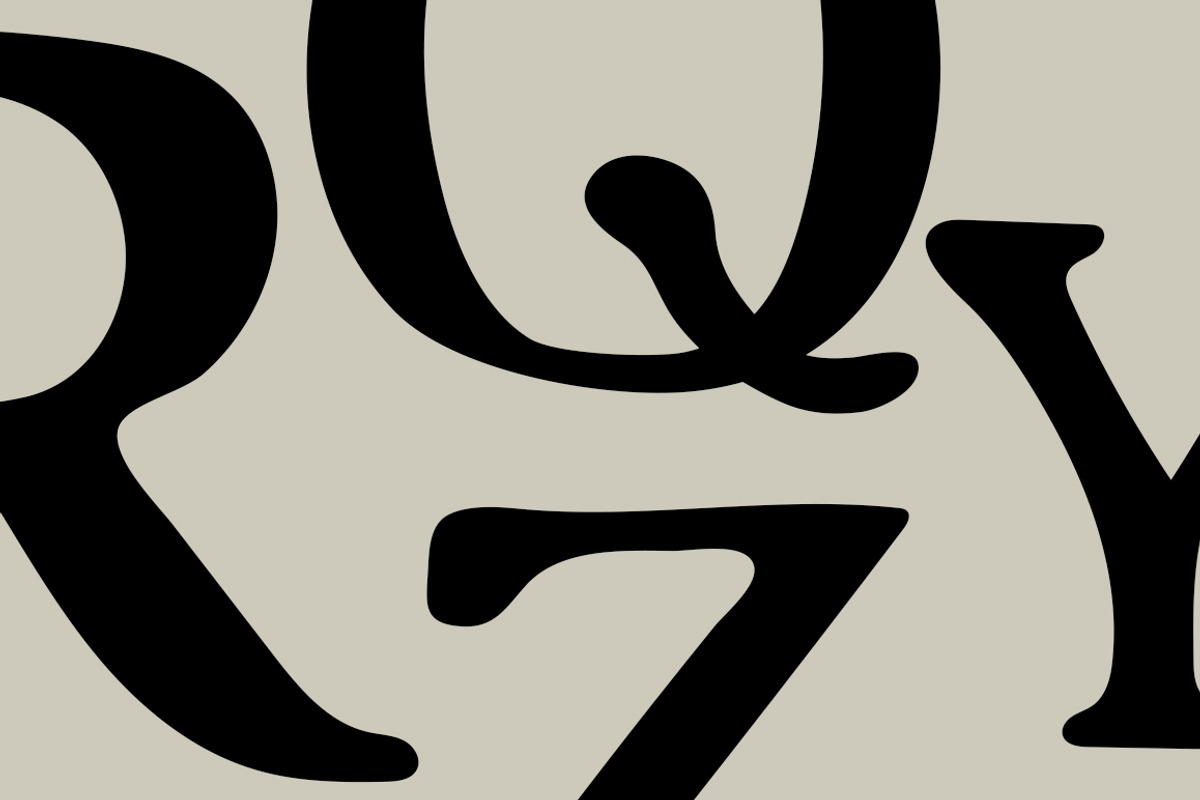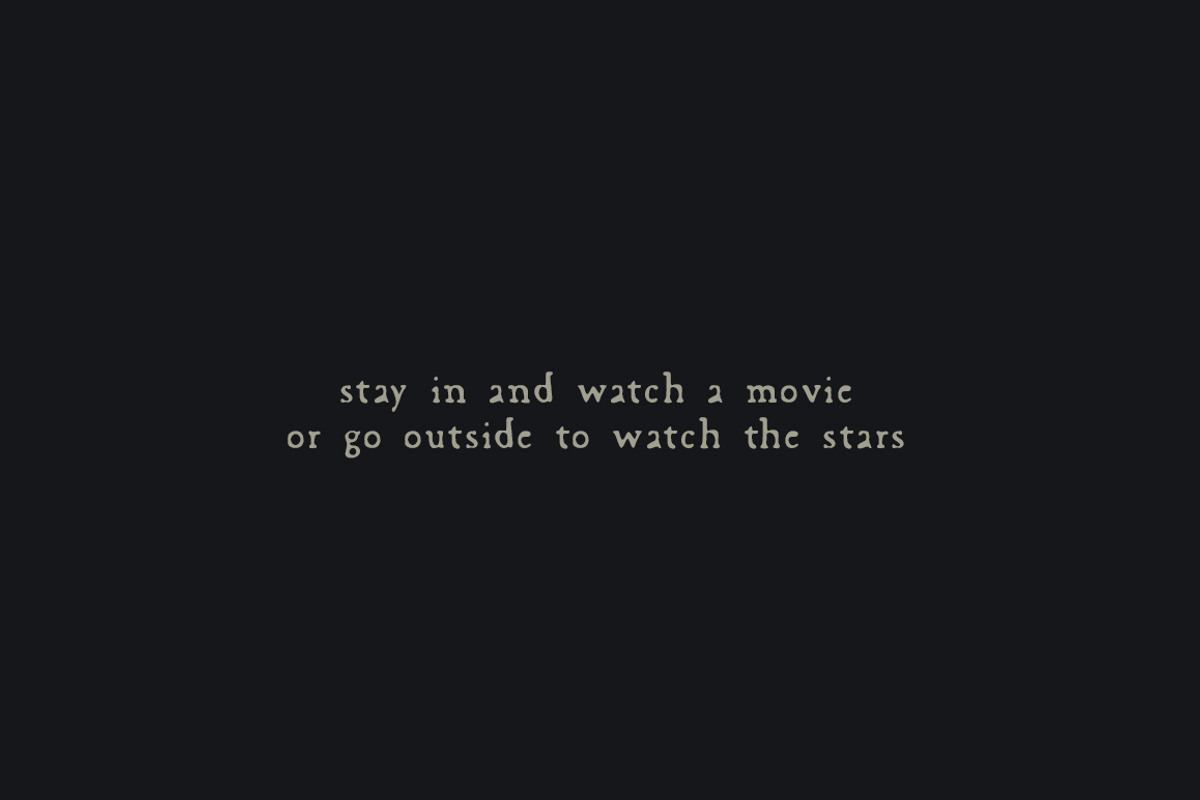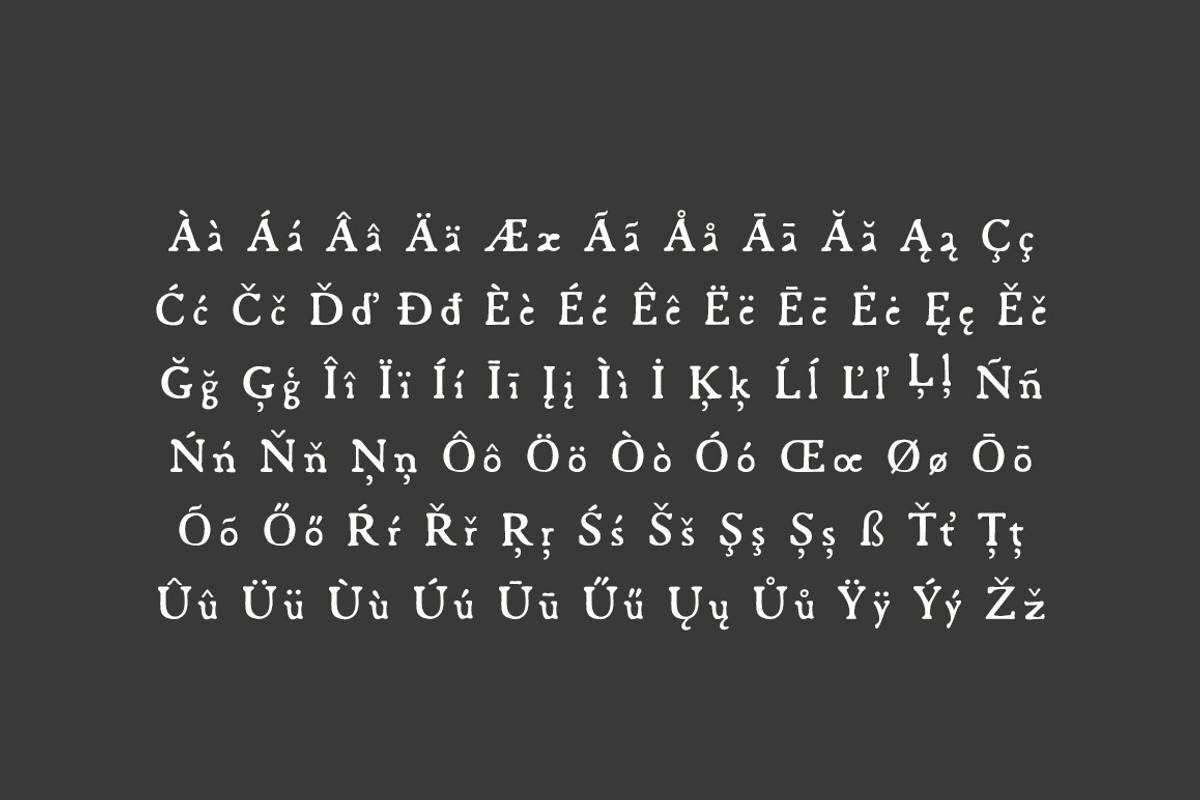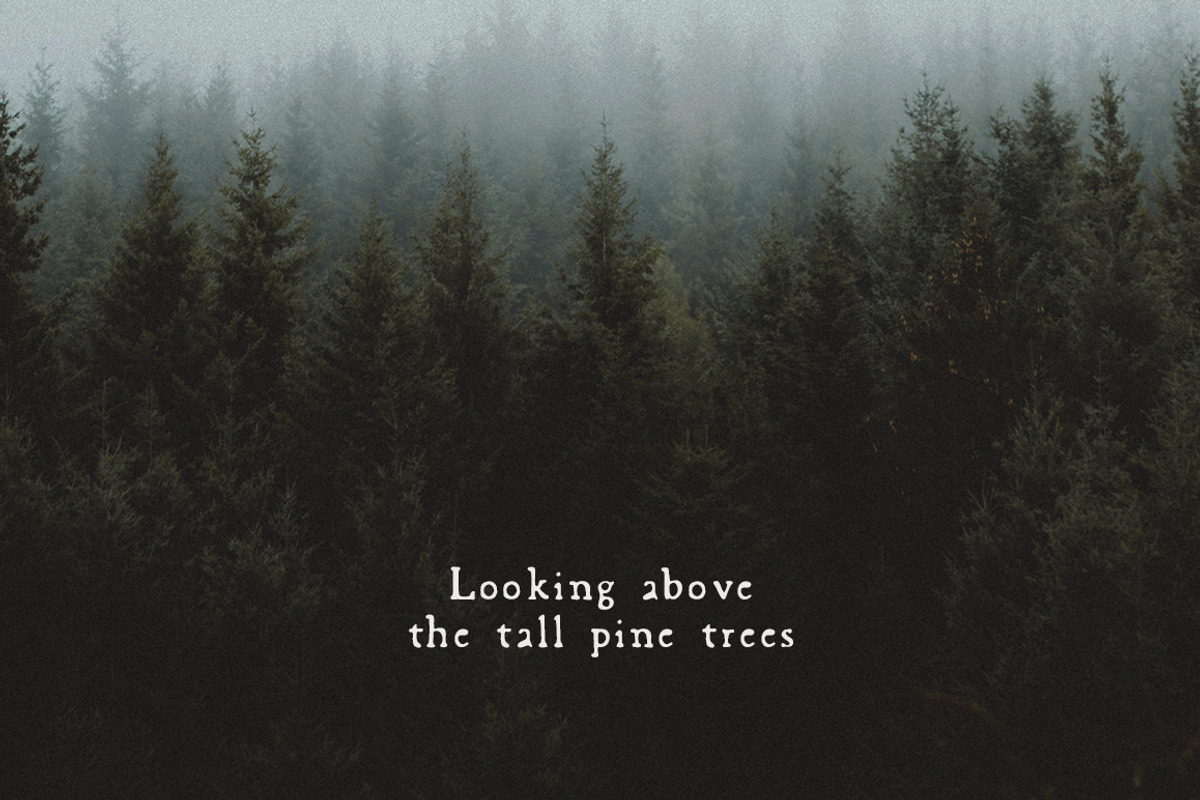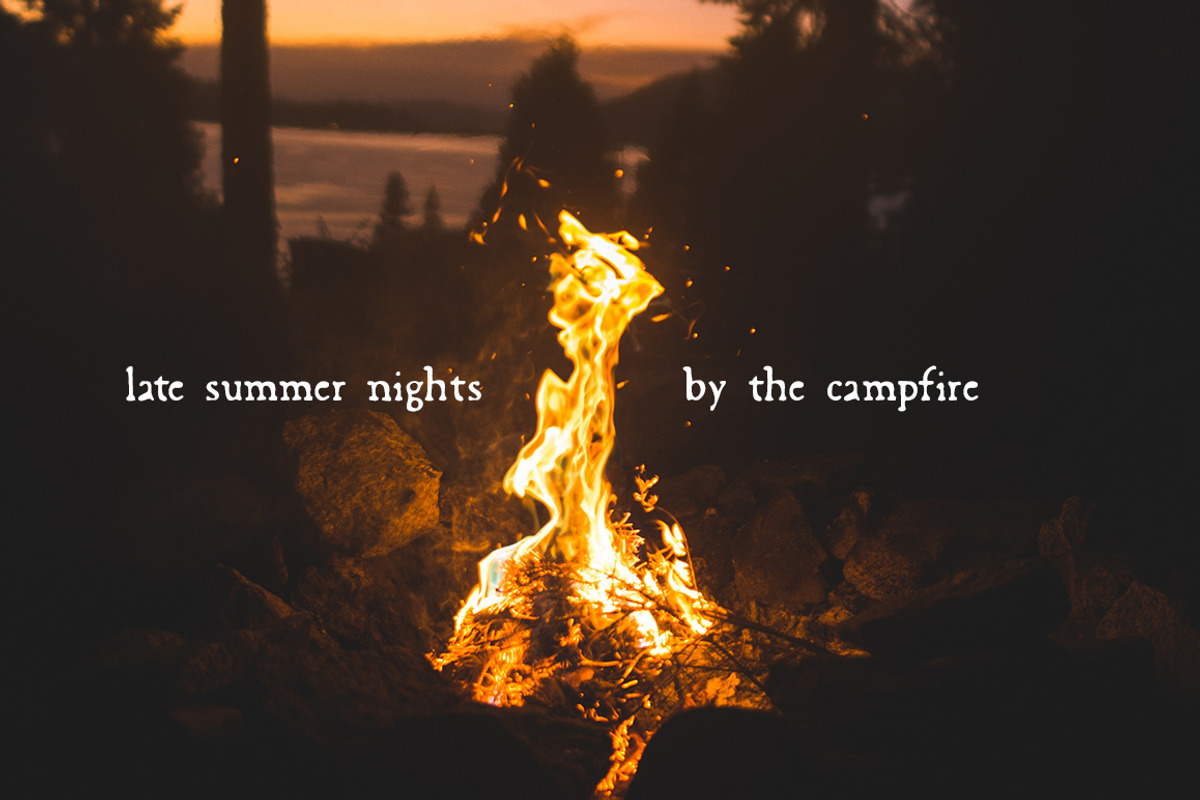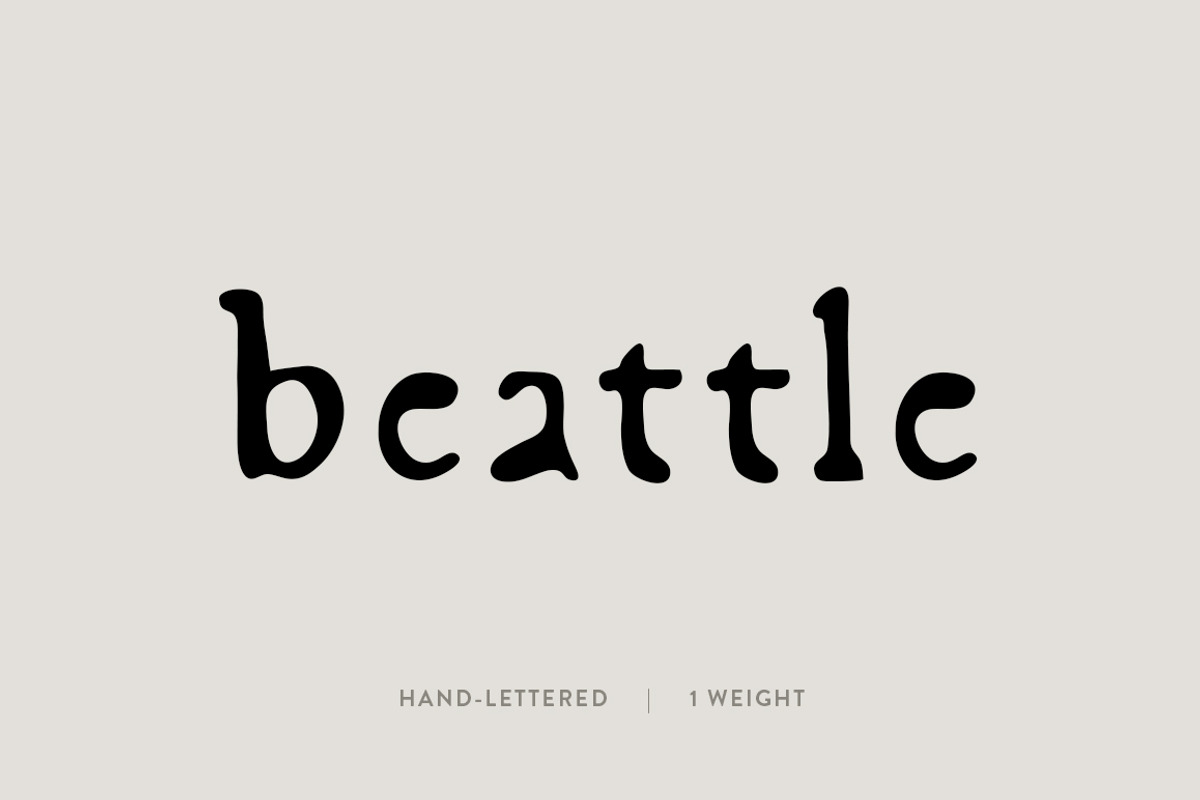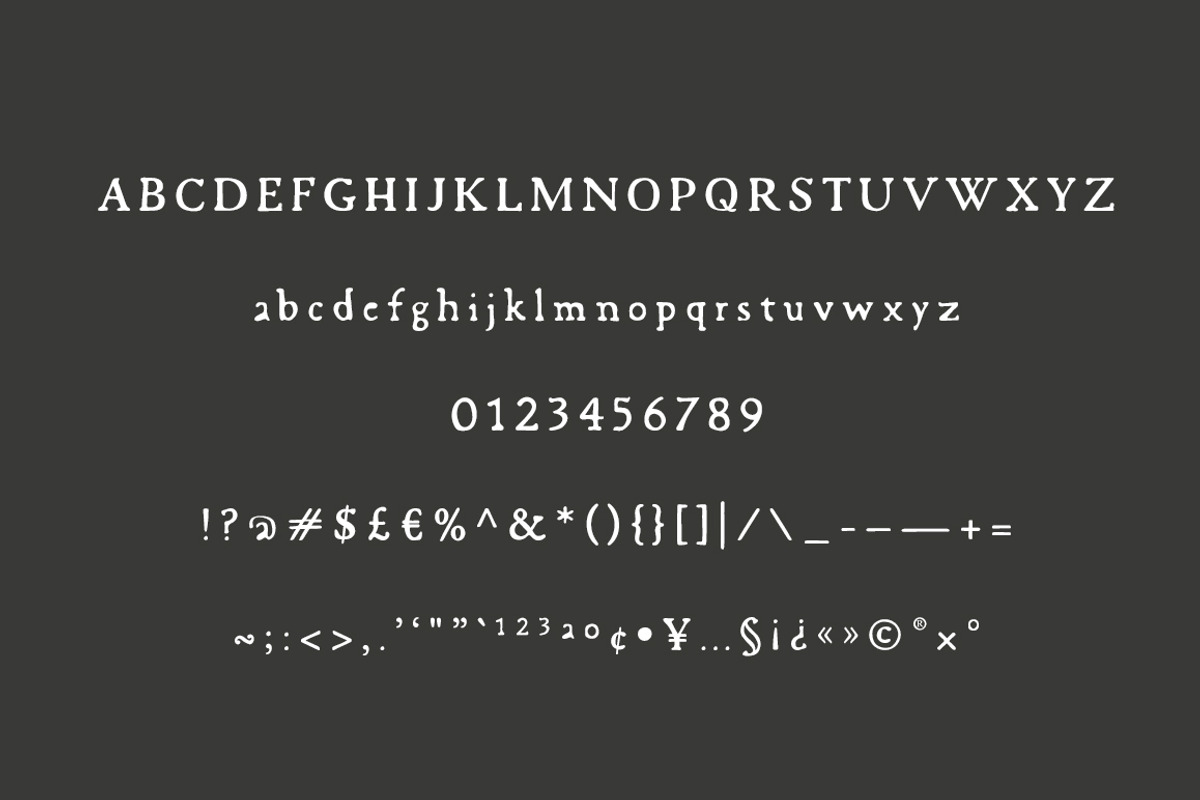
Beattle: A Typewriter-Inspired Font
The Beattle Font
Beattle was created to embody my design and lettering style. The font creates a timeless feel while tipping its cap to the past with its vintage-inspired lines that mimic the muddy ink from a typewriter. With its simple feel and touch of organic, this font is meant to be versatile. It is perfect for all projects that need anything from a naturally bold or a minimalistic thin style.
Included Characters:
Aa Bb Cc Dd Ee Ff Gg Hh Ii Jj Kk Ll Mm Nn Oo Pp Qq Rr Ss Tt Uu Vv Ww Xx Yy Zz Àà Áá Ââ Ää Ææ Ãã Åå Āā Ăă Ąą Çç Ćć Čč Ďď Đđ Èè Éé Êê Ëë Ēē Ėė Ęę Ěě Ğğ Ģģ Îî Ïï Íí Īī Įį Ìì İ Ķķ Ĺĺ Ľľ Ļļ Ññ Ńń Ňň Ņņ Ôô Öö Òò Óó Œœ Øø Ōō Õõ Őő Ŕŕ Řř Ŗŗ Śś Šš Şş Șș ß Ťť Țț Ûû Üü Ùù Úú Ūū Űű Ųų Ůů Ÿÿ Ýý Žž Źź Żż 0 1 2 3 4 5 6 7 8 9 @:.!?()[]{}-+*,;~$%&|=—–_^£€“”`’`/#`¹²³ªº¢•¥…§¡¿«»©®×°
This font was created digitally by hand. Enjoy!